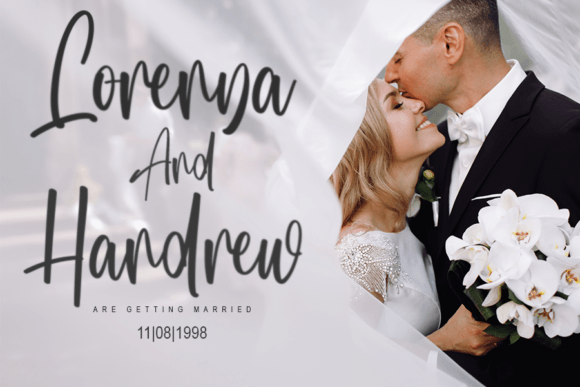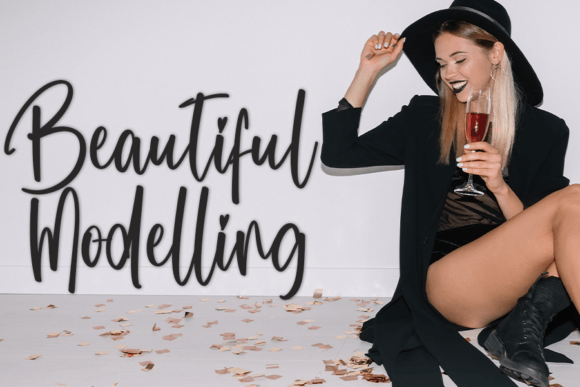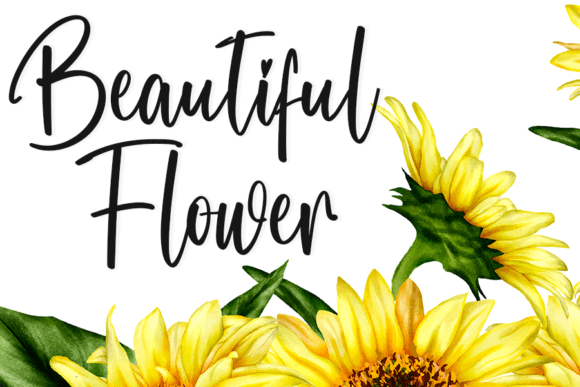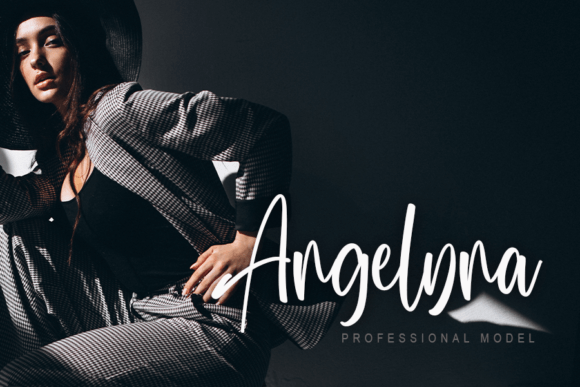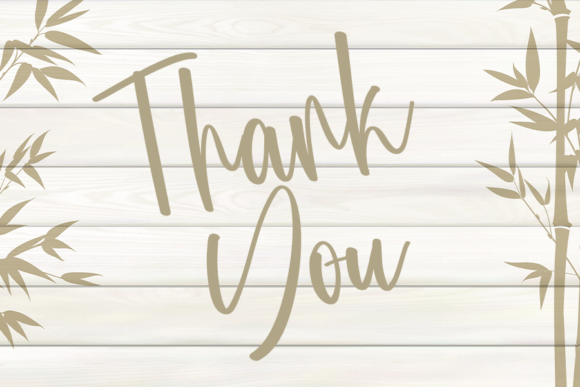
The Airport Font: Elevate Your Designs with Elegant Handwritten Charm
I’ll never forget the time I was working on a branding project for a luxury wedding planner. I had spent hours pouring over design concepts, but something was missing. That’s when I stumbled upon the Airport font, and it completely transformed my design. The elegant, curvy lines added a touch of sophistication and whimsy that perfectly captured the essence of the brand. In this article, I’ll share my experience with the Airport font, its features, and how to make the most of it in your designs.
An Honest Review of Airport Font
• ✨ Elegant and curvy lines that add a touch of sophistication to any design
• ✅ Highly versatile and suitable for a wide range of projects, from product packaging to social media posts
• 💕 Perfect for weddings, invitations, and other special occasions
• 🎨 Beautifully crafted to make your work stand out
While the Airport font is incredibly versatile, there are a few things to keep in mind:
• ⚠️ It may not be the best choice for body text or long-form content, as its elegant lines can be overwhelming in large quantities
• 🤔 Some users have reported issues with kerning and spacing, particularly when using certain character combinations
The Designer Inspiration Behind Airport Font
The Airport font was designed with the intention of creating a beautiful, handwritten font that would add a touch of elegance to any design. The designer drew inspiration from classic typography and modern calligraphy, resulting in a font that’s both timeless and trendy.
Font Name Airport Font
Author Black line
Q: What type of projects is the Airport font best suited for?
A: The Airport font is perfect for projects that require a touch of elegance and sophistication, such as branding, packaging, and wedding designs.
Q: Is the Airport font suitable for body text?
A: While the Airport font is beautiful, it’s not the best choice for body text or long-form content. Its elegant lines can be overwhelming in large quantities, making it better suited for headings and titles.